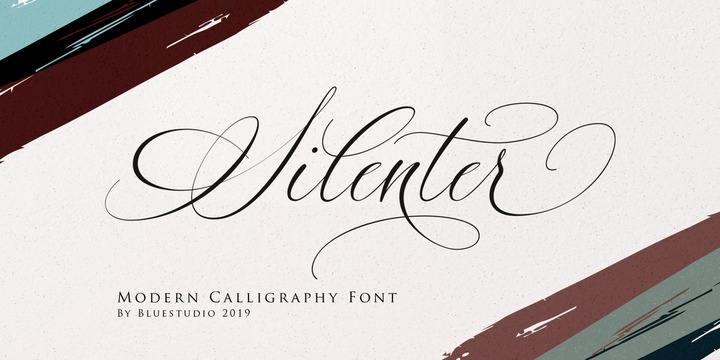
Silenter Font
This font is perfect for meditation app interfaces, mindfulness website headers, zen retreat branding, quiet library signage, therapeutic center communications, contemplative book covers, minimalist lifestyle blogs, and peaceful wellness product packaging.
The Silenter Font Free Download is exciting because it embodies the profound power of quietude and inner peace with its gentle, understated letterforms that create tranquil reading experiences while maintaining perfect clarity for contemplative communications.
The Silenter font family includes ultra-light, light, regular, medium, and semibold weights, plus refined italic versions, providing designers with subtle typographic options for creating serene branding systems and meditative design compositions.
Whether you're designing for wellness sanctuaries, mindfulness organizations, or contemplative lifestyle brands, the Silenter Font delivers unmatched serenity and spiritual depth. Its carefully crafted letterforms feature soft edges and harmonious proportions that perfectly capture the essence of silence and inner reflection. The font's peaceful character makes it particularly effective for brands wanting to communicate tranquility, wisdom, and the transformative power of stillness. Professional designers appreciate how this typeface balances minimal aesthetics with exceptional readability, ensuring messages remain clear while conveying profound calm and spiritual presence. The font's whisper-quiet elegance and contemplative flow reflect the sacred spaces and mindful practices associated with personal growth and spiritual development. From meditation centers to mindfulness publications, this font adapts beautifully to any contemplative application. The Silenter Font Free Download offers remarkable value for designers seeking typography that honors the sacred nature of silence. Its timeless meditative appeal ensures lasting effectiveness in spiritual communications, while its subtle weight variations accommodate different levels of contemplative depth. The font's optimized spacing and peaceful character create nurturing environments that encourage introspection and support audiences on their journey toward inner peace and mindful awareness, making it essential for organizations dedicated to cultivating silence and spiritual well-being.